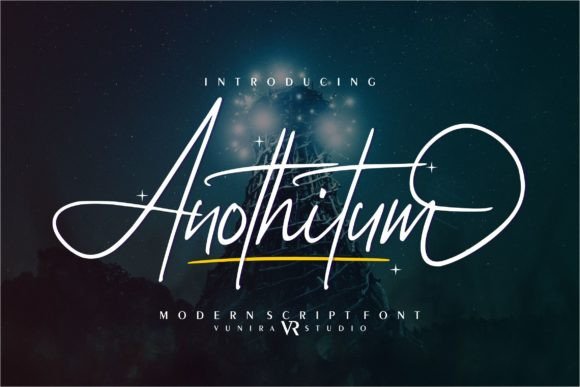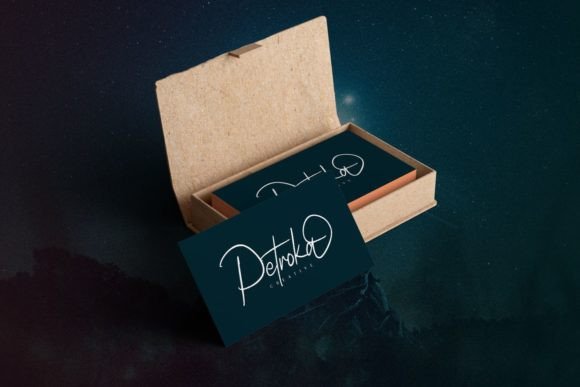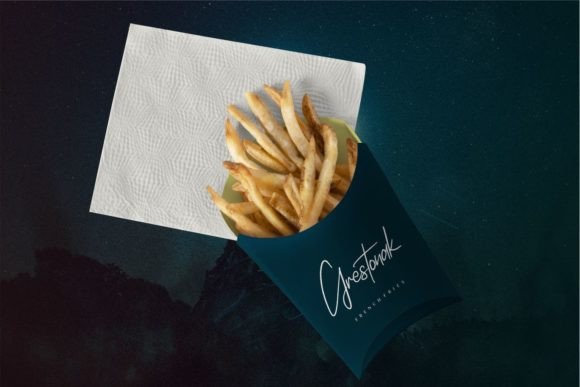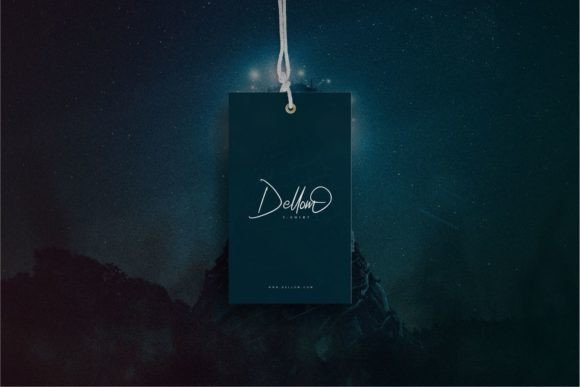
A Modern Calligraphy Script for Creative Projects
Anothitum Font is a modern script font with a captivating calligraphy style. It’s perfect for a wide range of design projects, including invitations, greeting cards, branding materials, business cards, quotes, posters, and more. Its graceful strokes and delicate curves add a touch of beauty and sophistication to your designs.
Ideal for Invitations and Special Occasions
When it comes to invitations, Anothitum Font adds an elegant and sophisticated touch. The font’s graceful strokes and delicate curves create a sense of refinement and luxury. Whether you’re designing wedding invitations, party invites, or event announcements, Anothitum ensures your invitations are stunning and memorable.
Perfect for Greeting Cards
Greeting cards designed with Anothitum Font become works of art. The font’s calligraphic style adds a personalized and heartfelt touch to your messages. Whether it’s a birthday card, thank-you note, or special occasion card, Anothitum brings elegance and charm, making your greetings stand out.
Great for Branding and Business Materials
Branding materials and business cards benefit from Anothitum Font’s modern and stylish appearance. The font’s unique letterforms and flowing strokes create a distinctive and memorable visual identity. Whether you’re designing a logo, business card, or other branding materials, Anothitum conveys professionalism and creativity.
Bring Quotes and Posters to Life
Quotes and posters come to life with Anothitum Font’s calligraphy style. The font’s intricate details and artistic flair make your quotes and typography stand out. It adds sophistication and visual interest, making your designs captivating and impactful.
Enhance Your Designs with Anothitum Font
In summary, Anothitum Font is a modern script font with a calligraphy style that enhances a variety of design projects. From invitations and greeting cards to branding materials, business cards, quotes, and posters, Anothitum adds beauty, elegance, and uniqueness to your designs. Its captivating letterforms and flowing style make it the perfect choice for creating visually stunning and memorable designs.